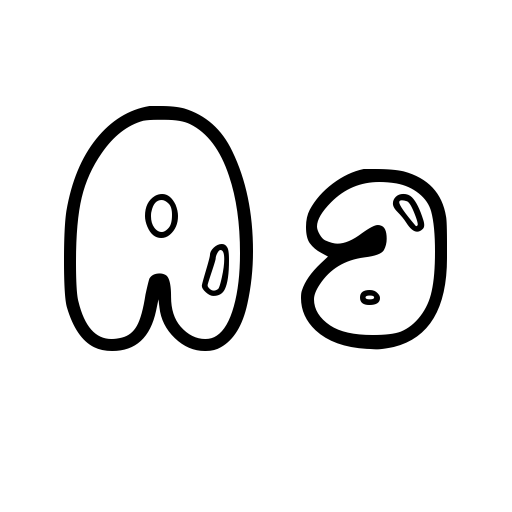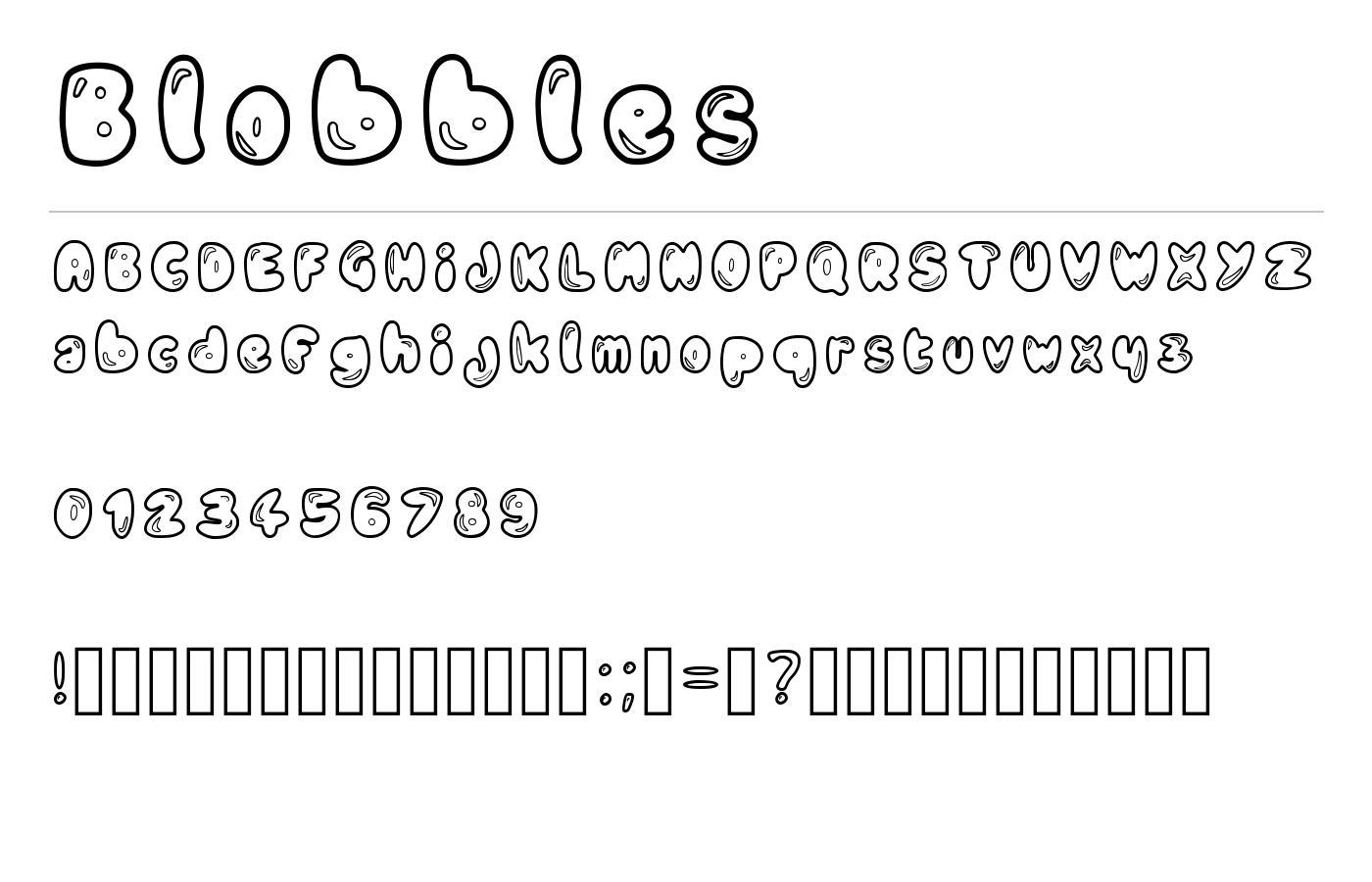
Blobbles is a playful, bubbly display font characterized by its rounded, irregular shapes and bold, outlined strokes that give it a fun, cartoon-like appearance. Its whimsical, hand-drawn style makes it perfect for children's materials, party invitations, and informal branding where a lively and friendly vibe is desired. This font shines in large sizes for headlines and logos, adding a cheerful and energetic personality to any design.
Blobbles Font
About Blobbles Font